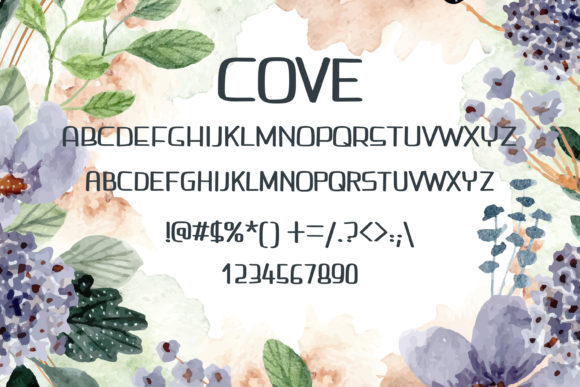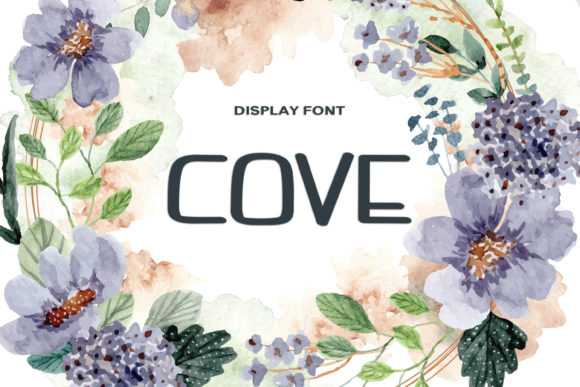
Cove Font: Elevate Your Designs with a Bold yet Minimalistic Display Font
In the world of typography, fonts play a crucial role in bringing ideas to life. A well-chosen font can elevate your design, convey your message, and leave a lasting impression on your audience. If you’re a designer or crafter looking for a unique and versatile font to add to your collection, look no further than Cove Font. In this article, we’ll explore the features and benefits of Cove Font, and how it can enhance your futuristic designs.
What is Cove Font?
Cove Font is a bold yet minimalistic display font that is perfect for designers and crafters who want to add a touch of futurism to their work. With its interestingly shaped letters, Cove Font is sure to grab attention and make your designs stand out. Its clean and simple lines make it a versatile font that can be used in a variety of contexts, from posters and headlines to logos and branding materials.
Key Features of Cove Font
- Bold and Minimalistic: Cove Font strikes the perfect balance between boldness and minimalism. Its thick lines and geometric shapes make it a statement font that can add depth and interest to your designs.
- Display Font: Cove Font is designed specifically as a display font, making it perfect for headlines, titles, and other attention-grabbing elements.
- Versatile: Cove Font can be used in a variety of contexts, from digital designs to print materials.
- Unique: Cove Font’s interestingly shaped letters make it a one-of-a-kind font that can add a touch of personality to your designs.
Benefits of Using Cove Font
So why choose Cove Font for your designs? Here are just a few benefits of using this versatile font:
- Adds Visual Interest: Cove Font’s bold and unique shape can add visual interest to your designs, making them more engaging and attention-grabbing.
- Enhances Creativity: With Cove Font, you can experiment with different design ideas and bring your creativity to life.
- Perfect for Futuristic Designs: Cove Font’s futuristic look and feel make it perfect for designs that require a cutting-edge aesthetic.
- Easy to Read: Despite its boldness, Cove Font is easy to read, making it perfect for use in headlines and titles.
How to Use Cove Font in Your Designs
Now that we’ve explored the features and benefits of Cove Font, let’s talk about how to use it in your designs. Here are a few tips to get you started:
- Experiment with Sizes: Cove Font looks great in large sizes, but it can also be used in smaller sizes to add a touch of personality to your designs.
- Play with Colors: Cove Font can be used in a variety of colors, so don’t be afraid to experiment and find the perfect hue for your design.
- Mix and Match: Cove Font can be paired with other fonts to create a unique and interesting contrast.
In conclusion, Cove Font is a bold yet minimalistic display font that can add a touch of futurism to your designs. With its interestingly shaped letters and versatile design, Cove Font is perfect for designers and crafters who want to bring their ideas to life. Whether you’re working on a poster, logo, or branding materials, Cove Font is sure to make a statement. So why not give it a try and see how it can elevate your designs?